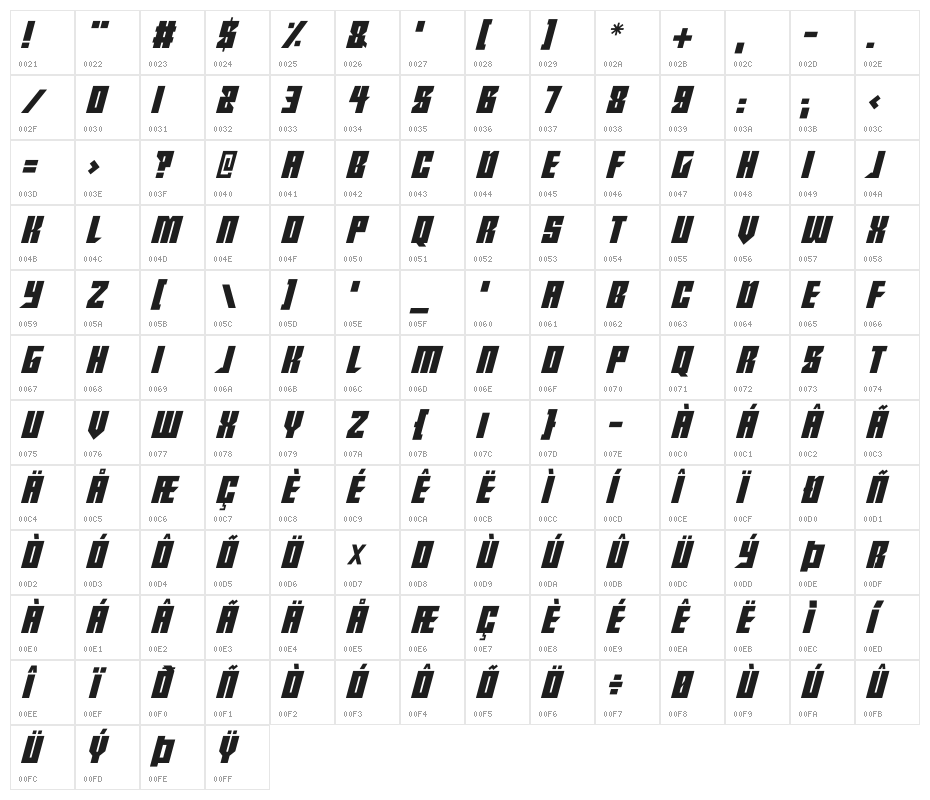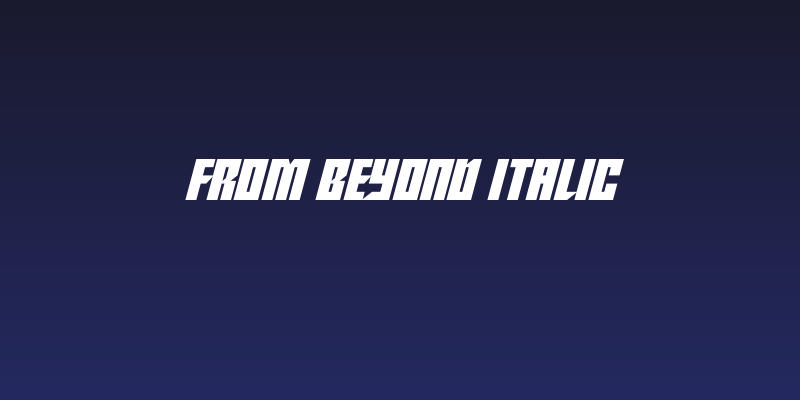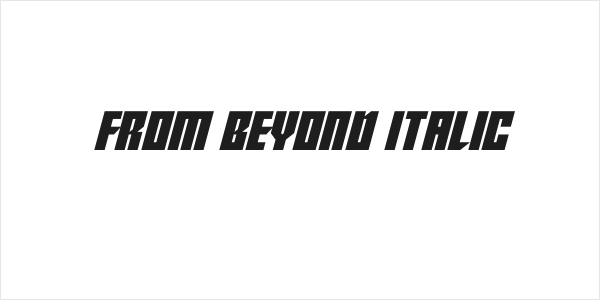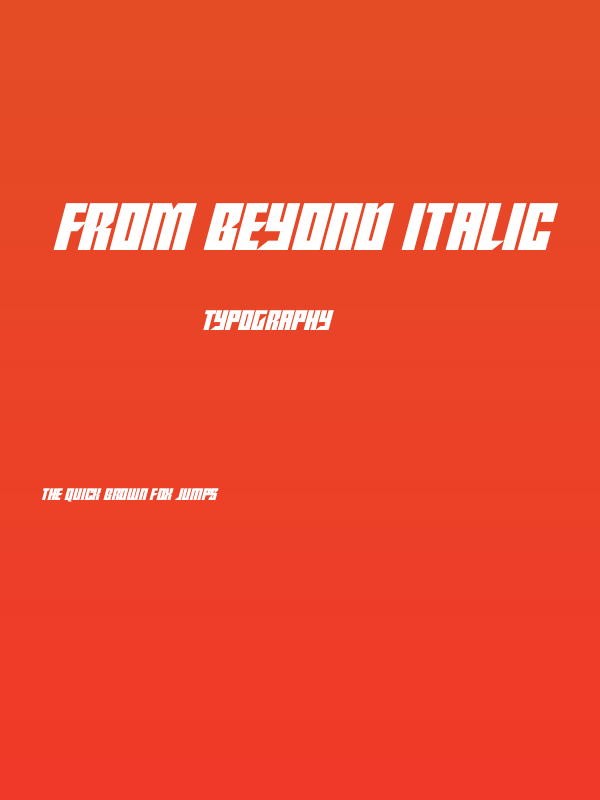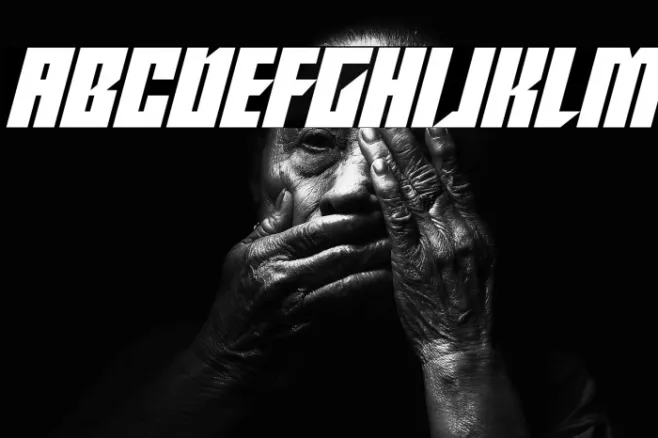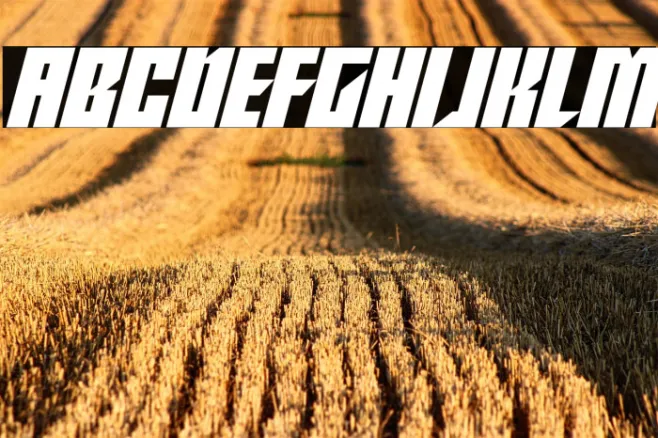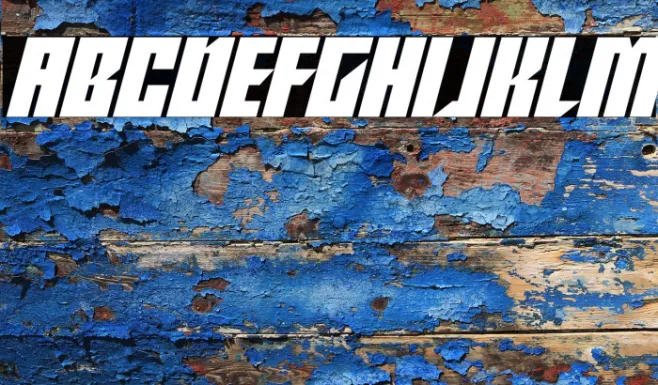
From Beyond Italic Font
From Beyond Italic Description
This font features a bold and dynamic style with a strong italic slant, giving it a sense of motion and energy. The characters are angular and geometric, with sharp edges and a futuristic appearance. The uppercase and lowercase letters maintain a consistent design, emphasizing the font's cohesive and striking look. The numbers and special characters follow the same bold and angular theme, ensuring uniformity across all glyphs. This font's unique style makes it stand out, ideal for projects that require a modern and edgy aesthetic.
| Proposed Projects | Ideal for sci-fi movie posters, video game titles, branding for tech companies, and any project needing a modern, edgy look. |